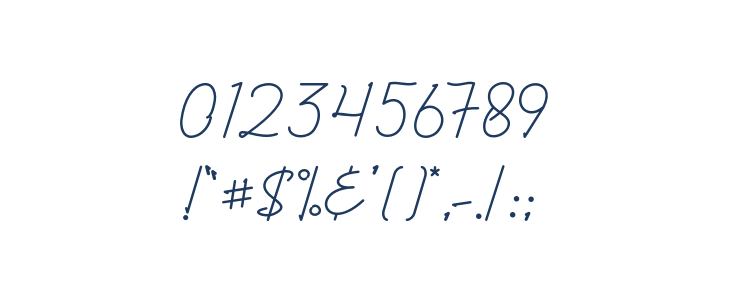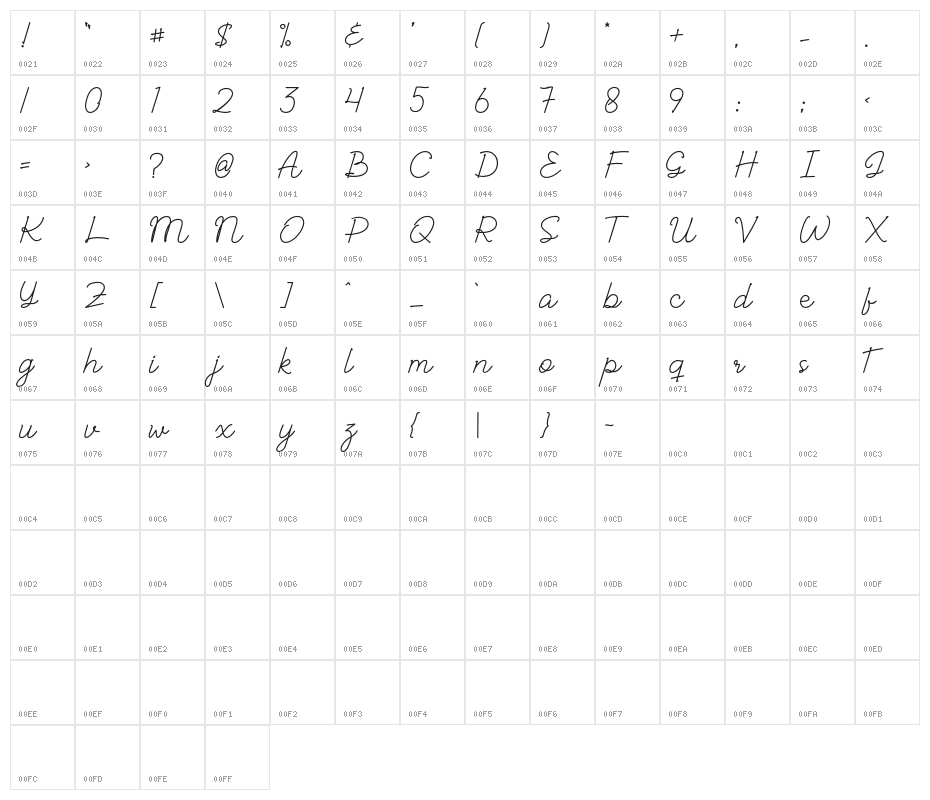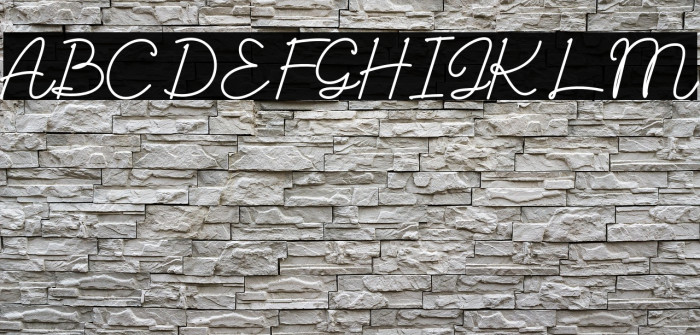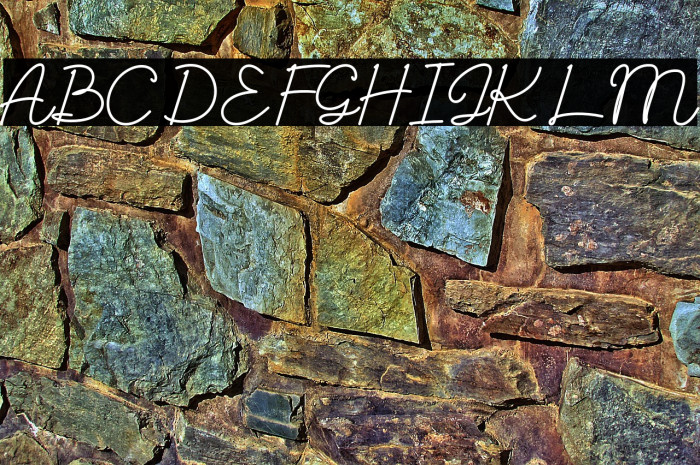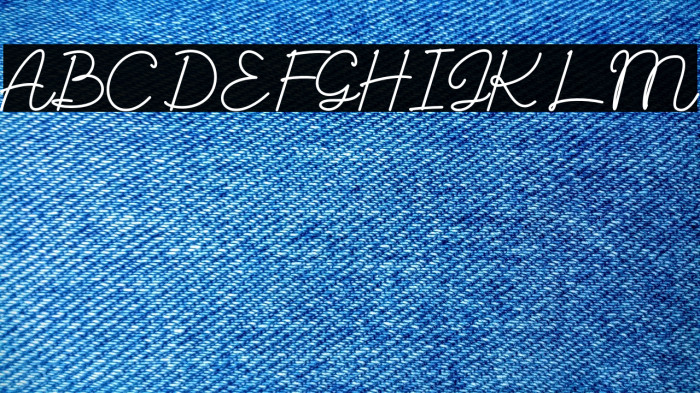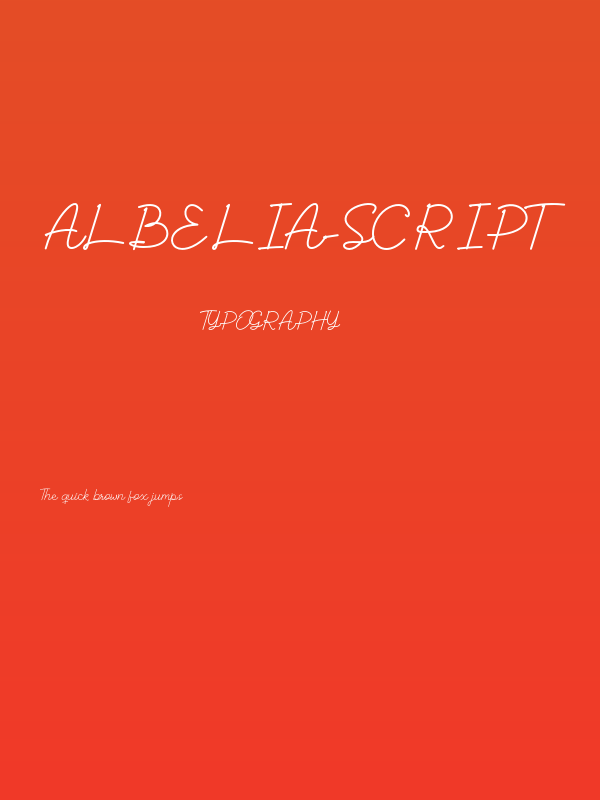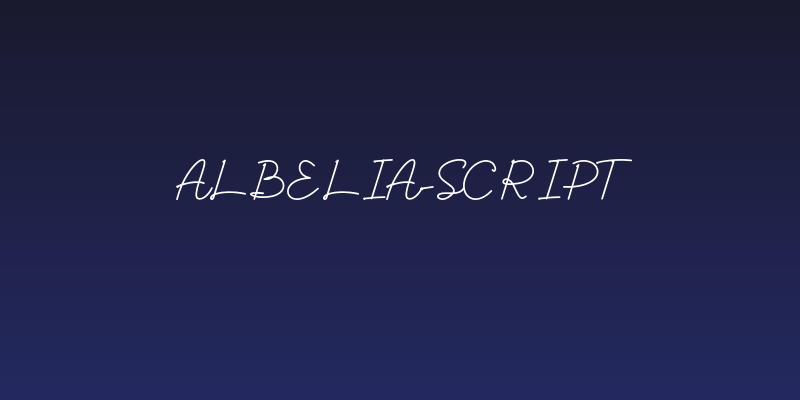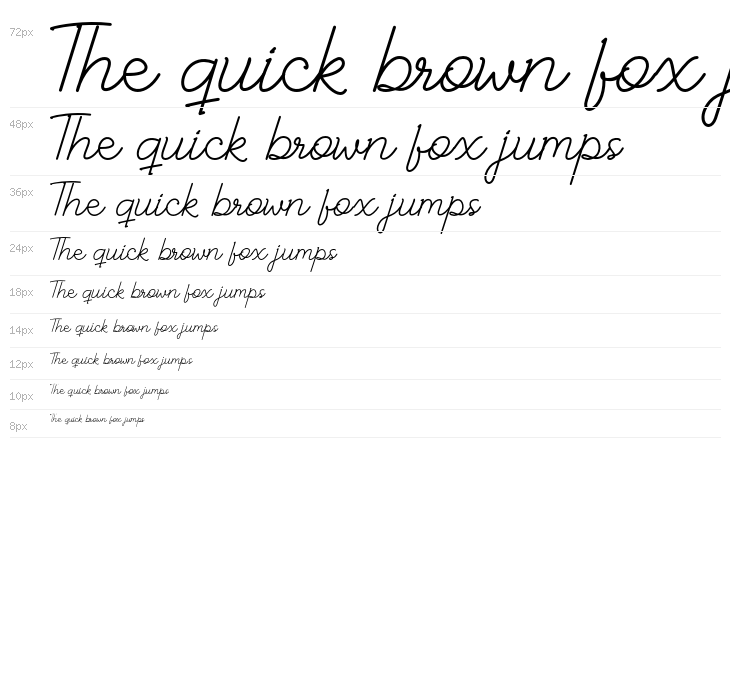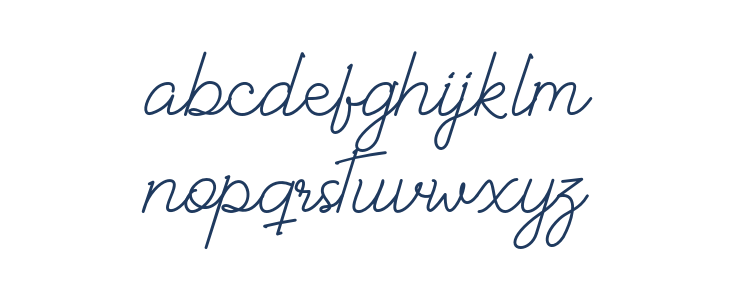
Albelia-Script Font
Albelia-Script Description
This font features a flowing, cursive style that mimics elegant handwriting. The characters are interconnected, providing a seamless and fluid appearance. The uppercase letters maintain a consistent height, while the lowercase letters exhibit a slight slant, enhancing the script's dynamic feel. The numerals and special characters are crafted with the same attention to detail, ensuring uniformity across the typeface. The strokes are smooth and rounded, contributing to a graceful and sophisticated look. This font is ideal for projects that require a personal touch, such as invitations, greeting cards, or branding materials.
| Overall Style | Elegant |
| Proposed Projects | Ideal for invitations, greeting cards, branding, and personal projects. |